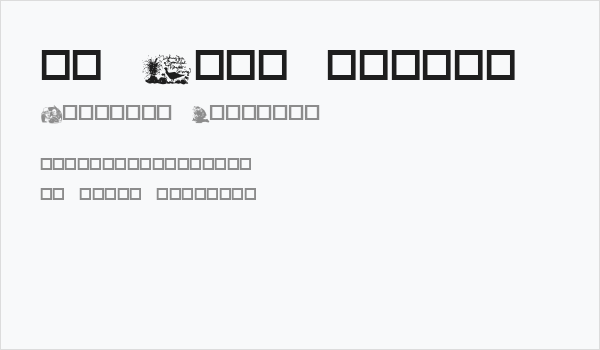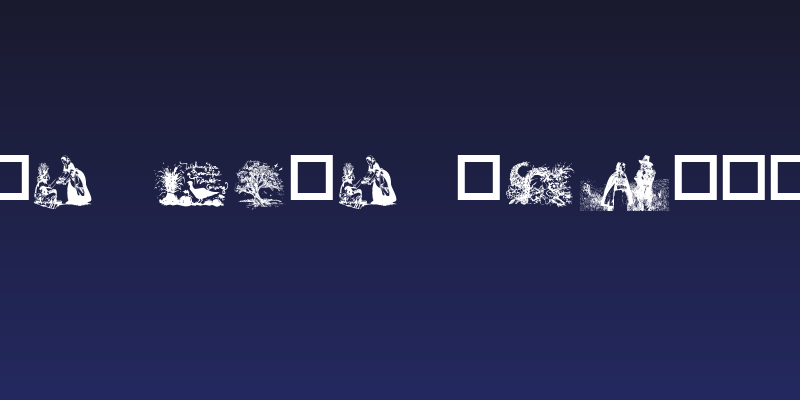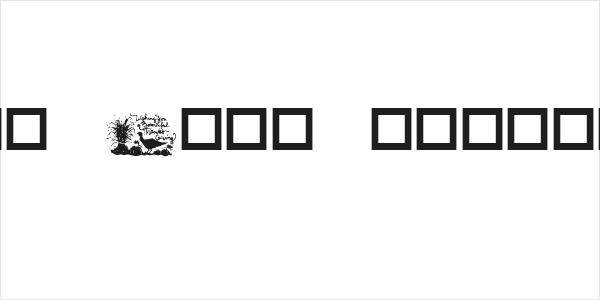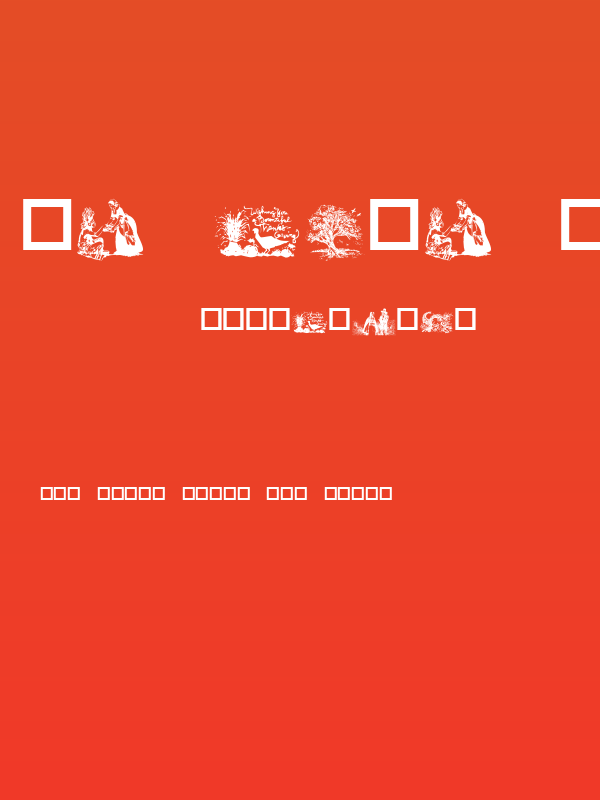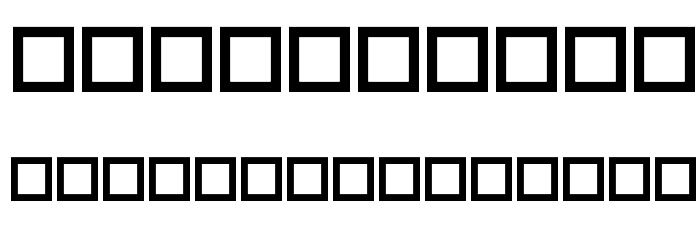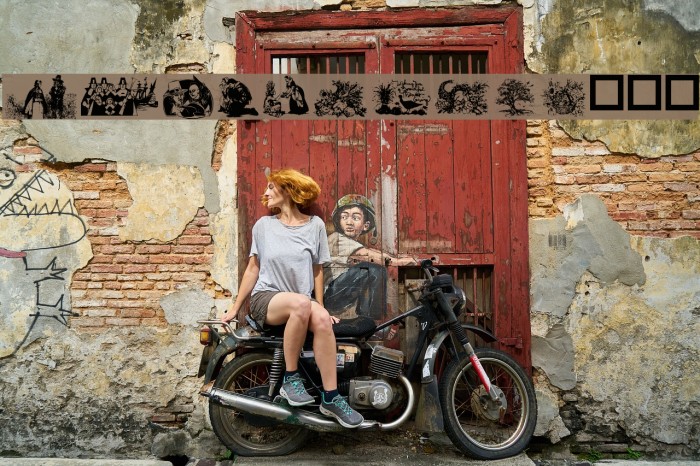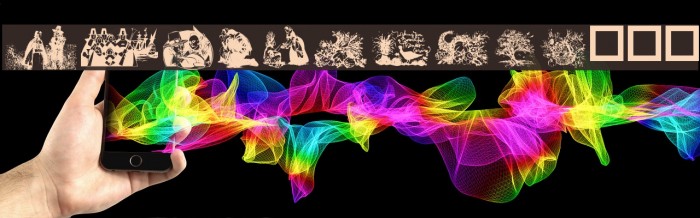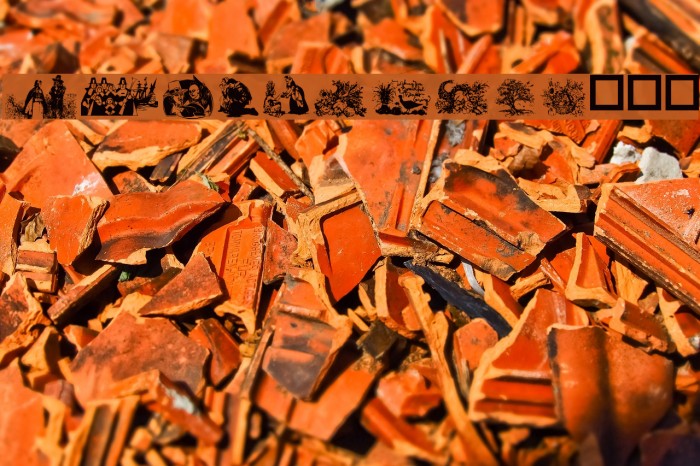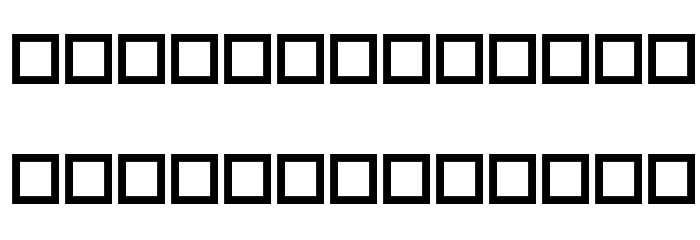
We Give Thanks Font
We Give Thanks Description
A highly decorative and illustrative font featuring detailed silhouette scenes, likely themed around harvest or thanksgiving, with each character represented by a unique pictorial vignette rather than traditional letterforms.
| Overall Style | Decorative, Thematic, Illustrative |
| Use Case | Headlines, Posters, Themed Graphics |
| Proposed Projects | Holiday cards, event posters, themed invitations, decorative headings, educational materials. |